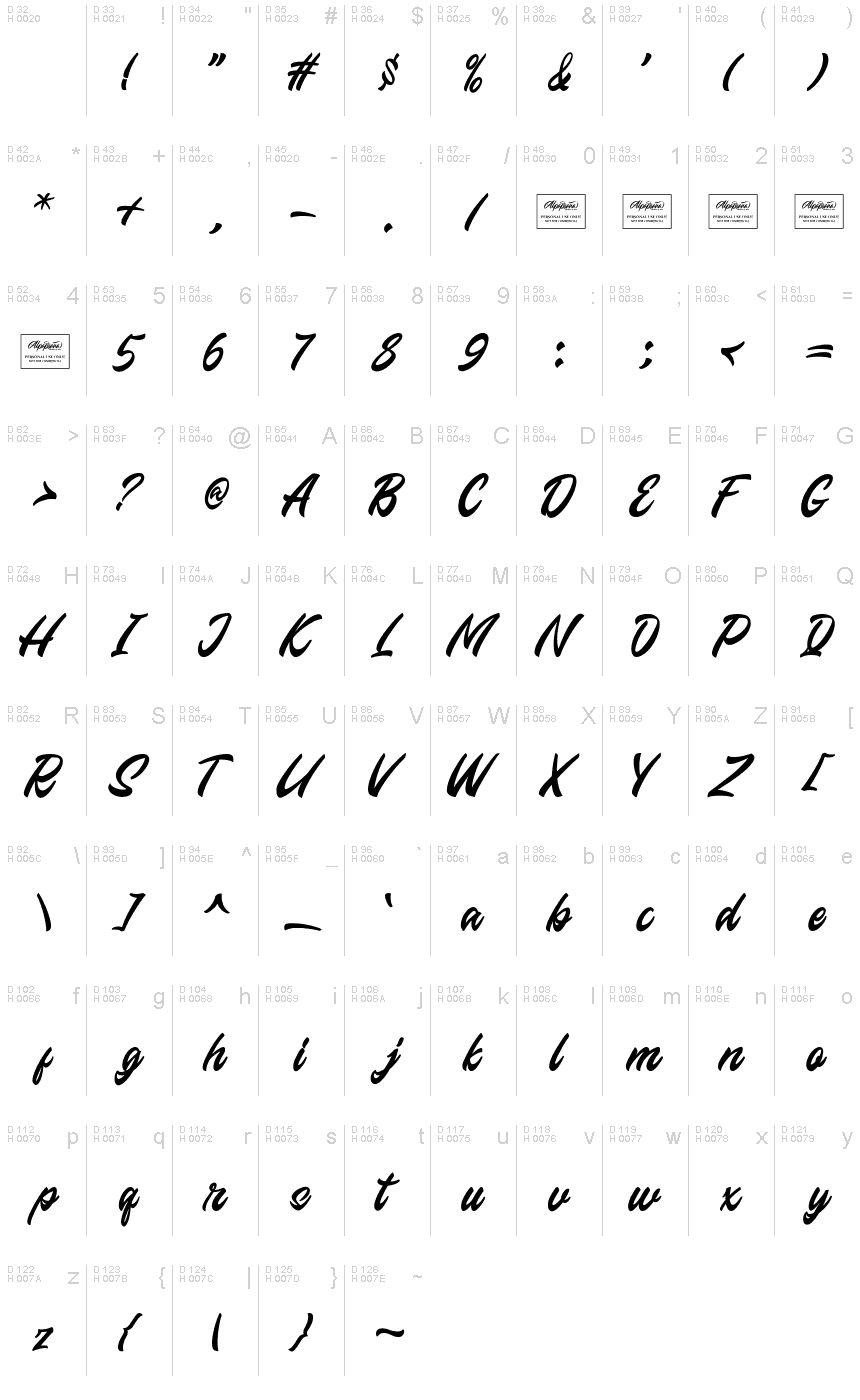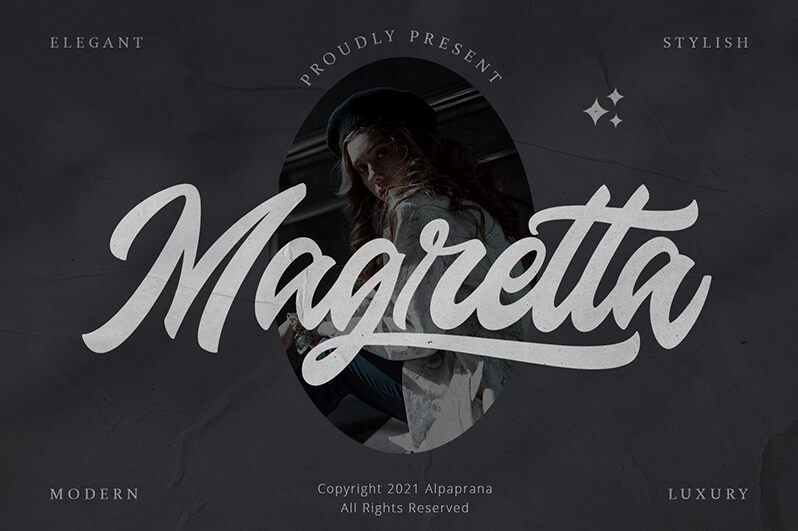
Magretta
Magretta is a bold script font designed by Alpaprana Studio. It has a handwritten style with plenty of character. It's perfect for crafting logos, invitations, and poster designs.